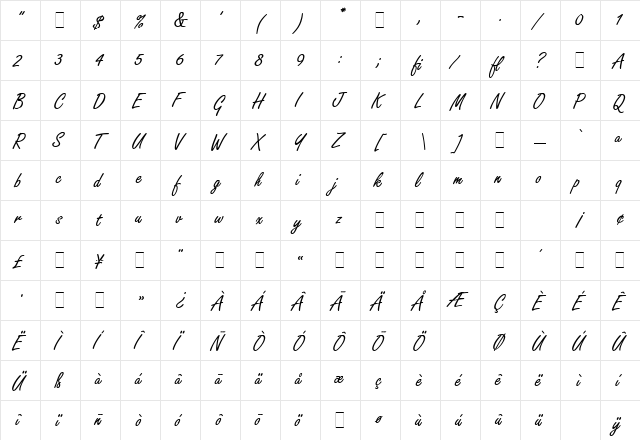
Freestyle Script LET Plain
Design Context for Freestyle Script LET Typeface
Freestyle Script LET brings a calligraphic fluidity to the page — its connecting strokes and expressive curves give it an unmistakably human quality.
Font Pairing: Combine Freestyle Script LET with a simple geometric sans for maximum contrast — the tension between flowing curves and clean structure is a classic typographic pairing.
Pro Tip: Use Freestyle Script LET for short runs of text — names, titles, or taglines. Extended body copy in script faces tires the eye quickly.